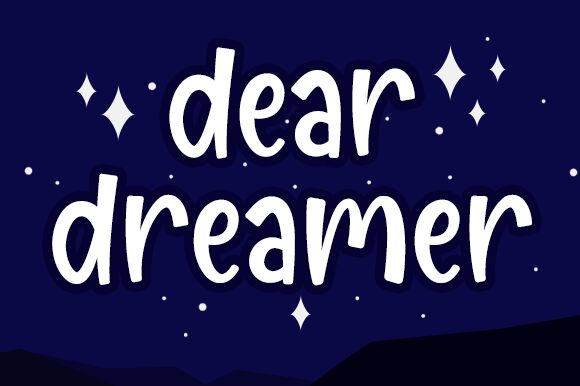
Dear Dreamer
Dear Dreamer, designed by Graphix Line Studio, is a playful and expressive display font that adds a touch of whimsy to any project. Its comic style creates a fun and lighthearted tone, making it perfect for children's books, posters, and greeting cards. The semi-condensed font width allows for maximum impact in headlines and titles without taking up too much space. Use Dear Dreamer for your next project to add a touch of imaginative flair to your designs.